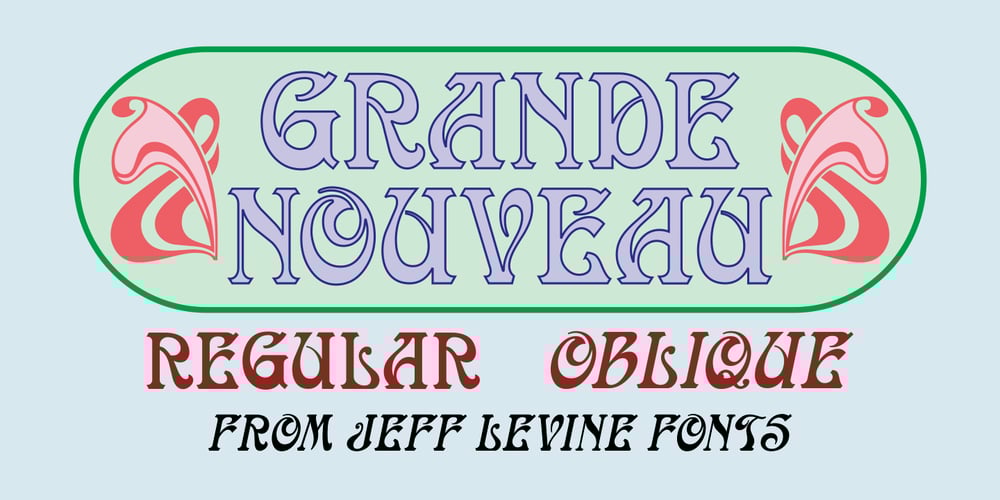
Grande Nouveau JNL
Grande Nouveau JNL font
Grande Nouveau JNL Font Family was designed by Jeff Levine and published by Jeff Levine. Grande Nouveau JNL contains 2 styles and family package options. A 1920 book on lettering called “Faust’s 75 Alphabets” by Charles Ayers Faust featured on one page a beautiful Art Nouveau serif design first shown in J. M. Bergling’s “Art Alphabets and Lettering” and was reproduced with Bergling’s permission.Originally called “The American Beauty”, it is now available digitally as Grande Nouveau JNL in both regular and oblique versions.